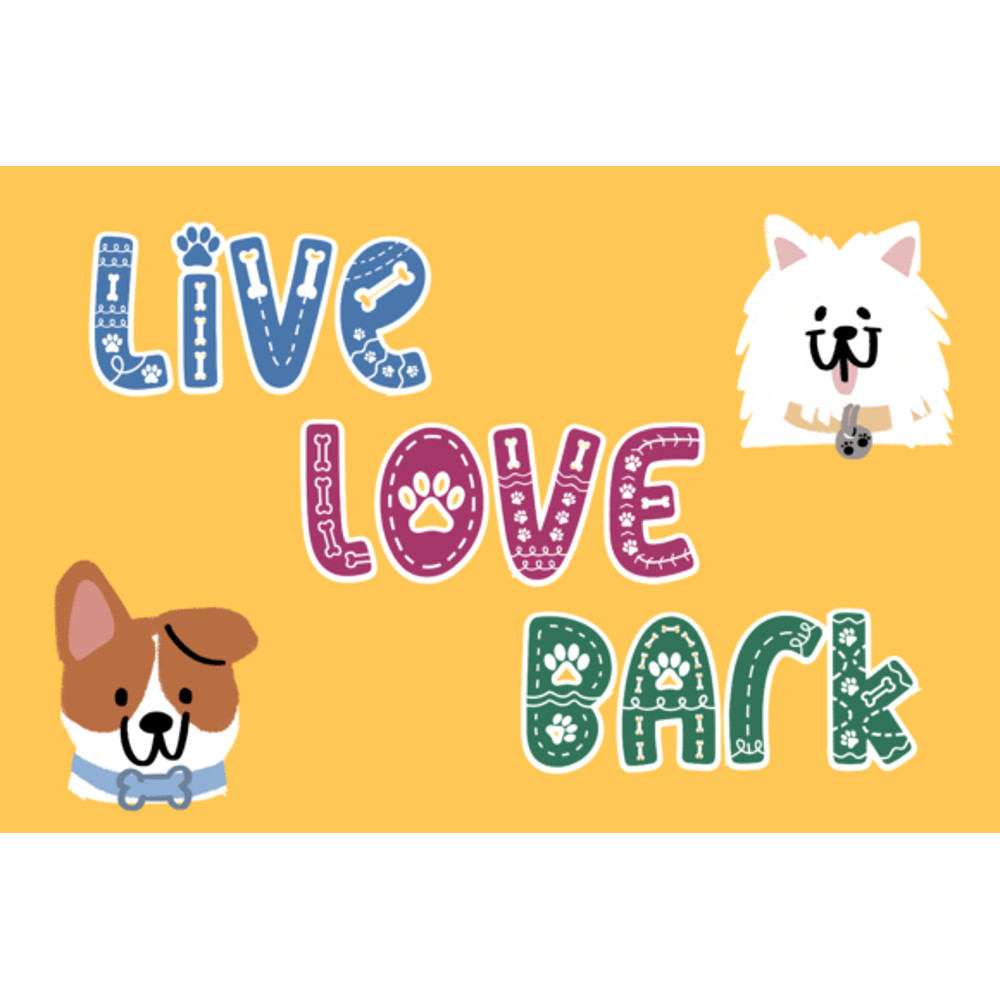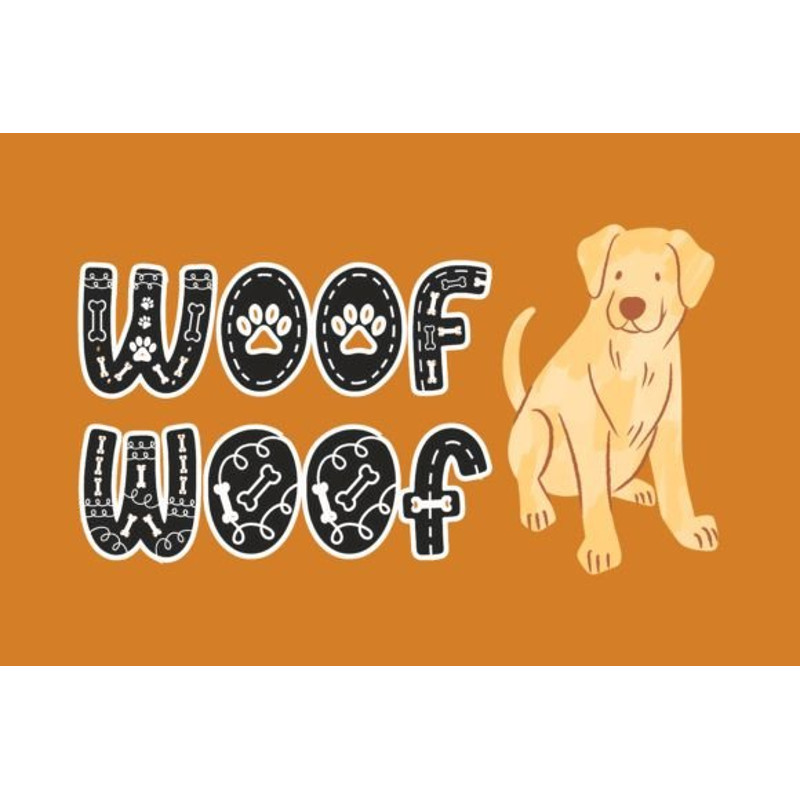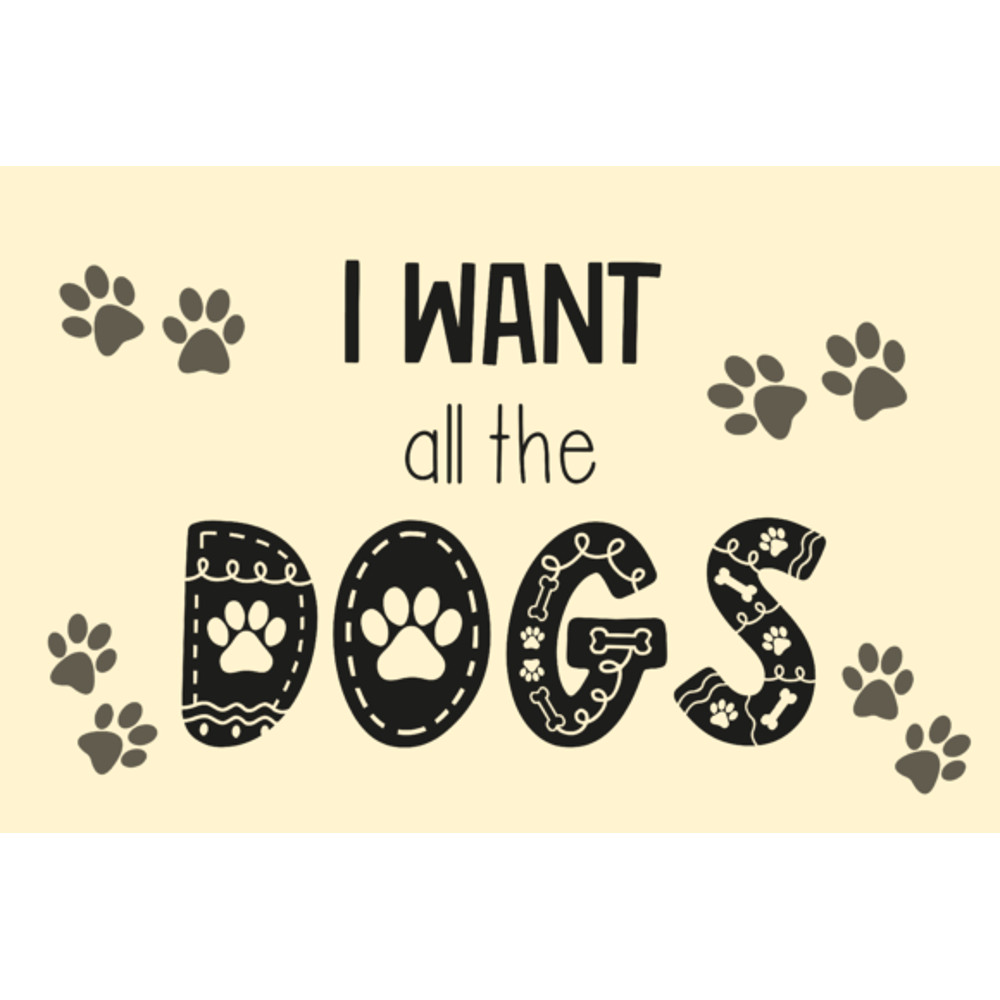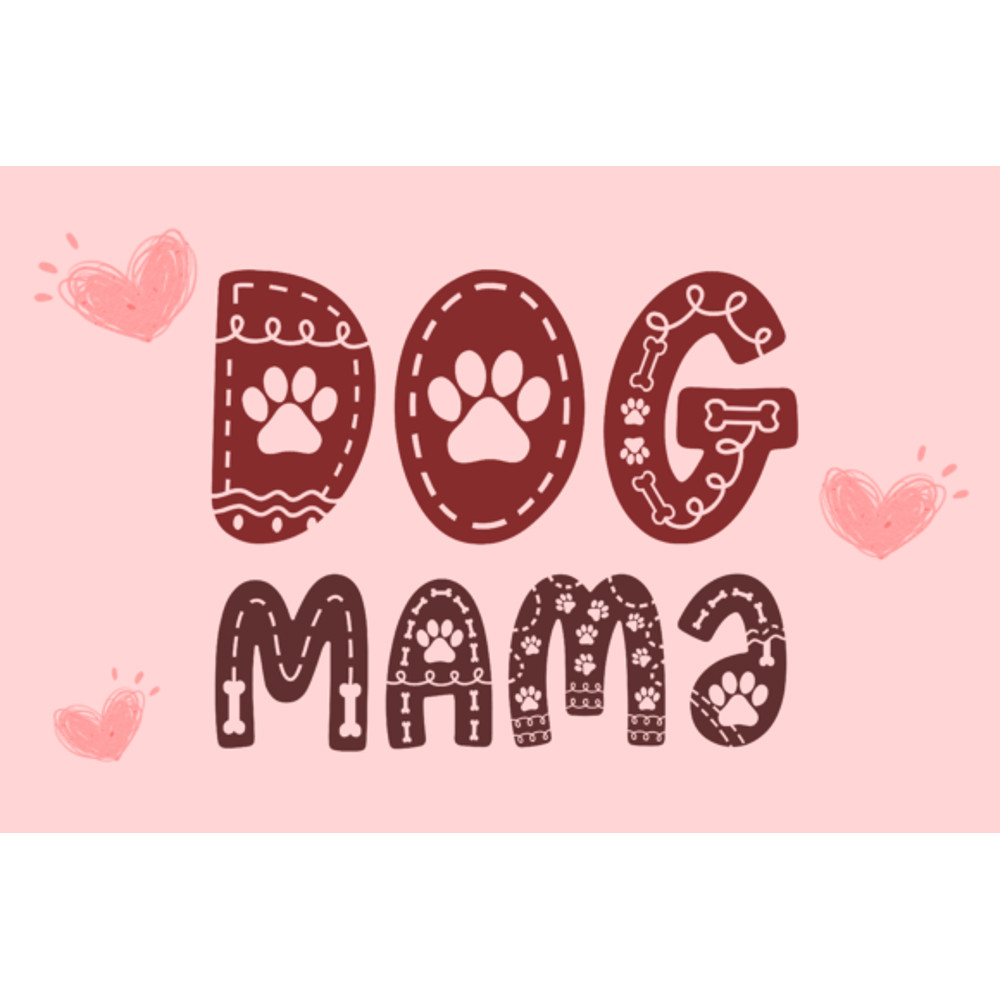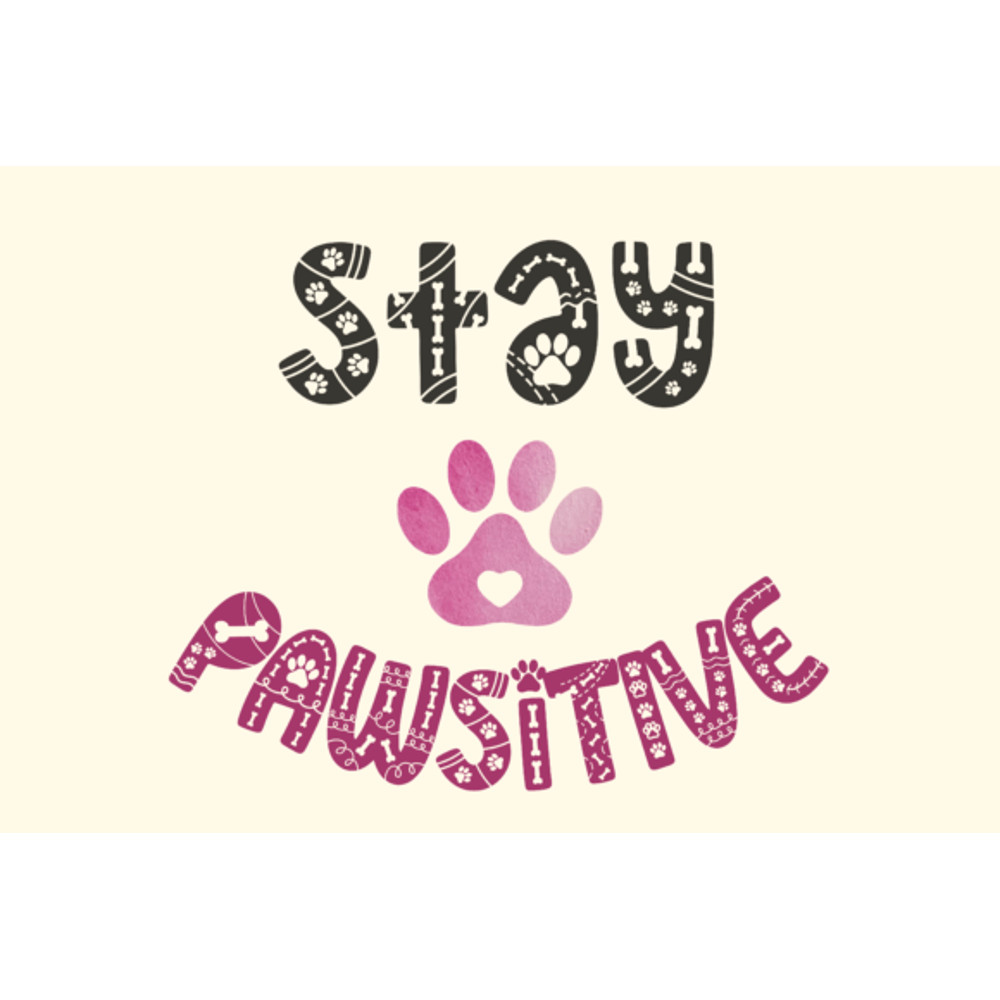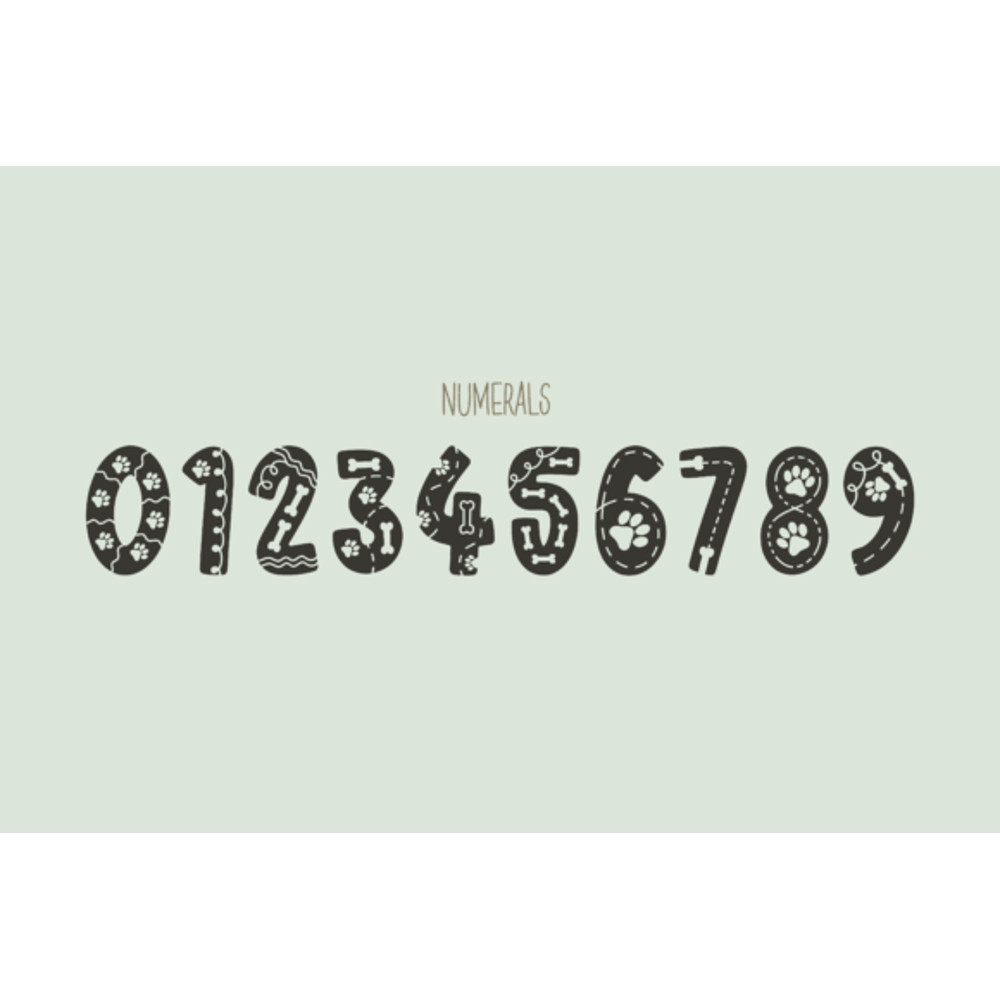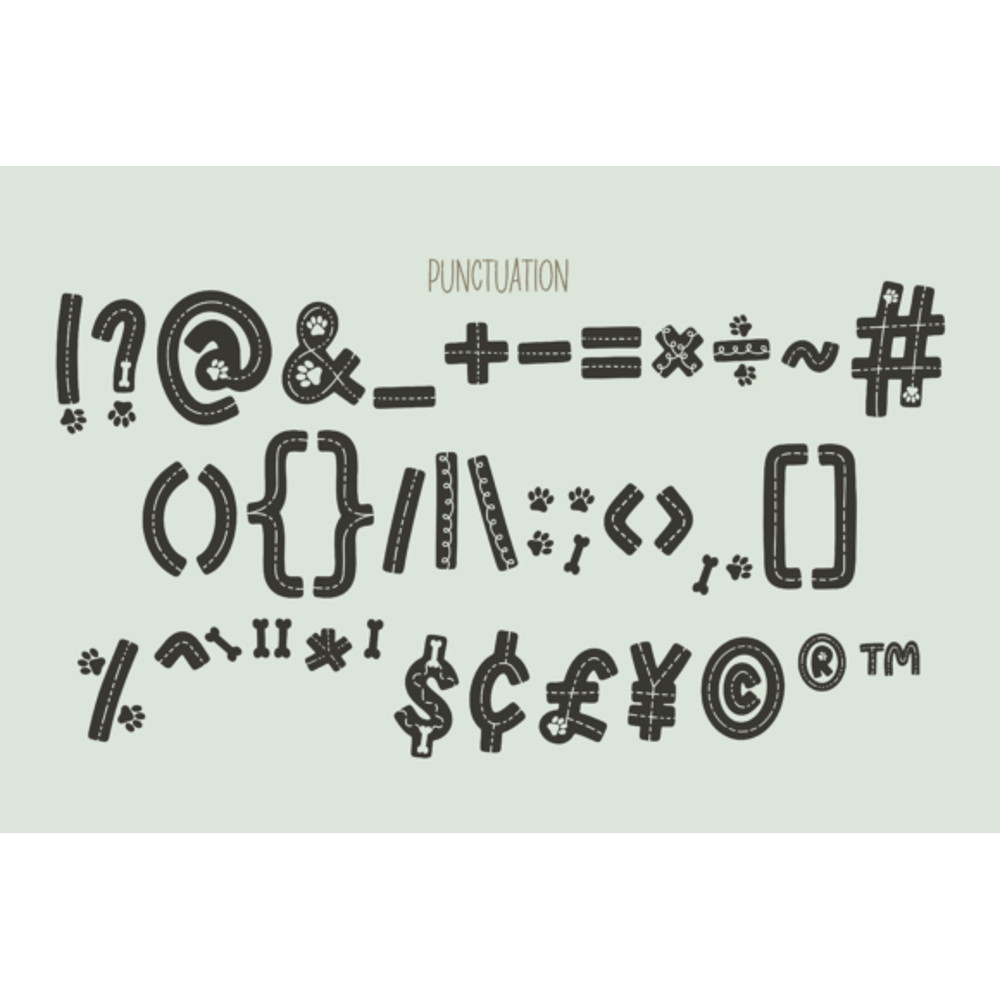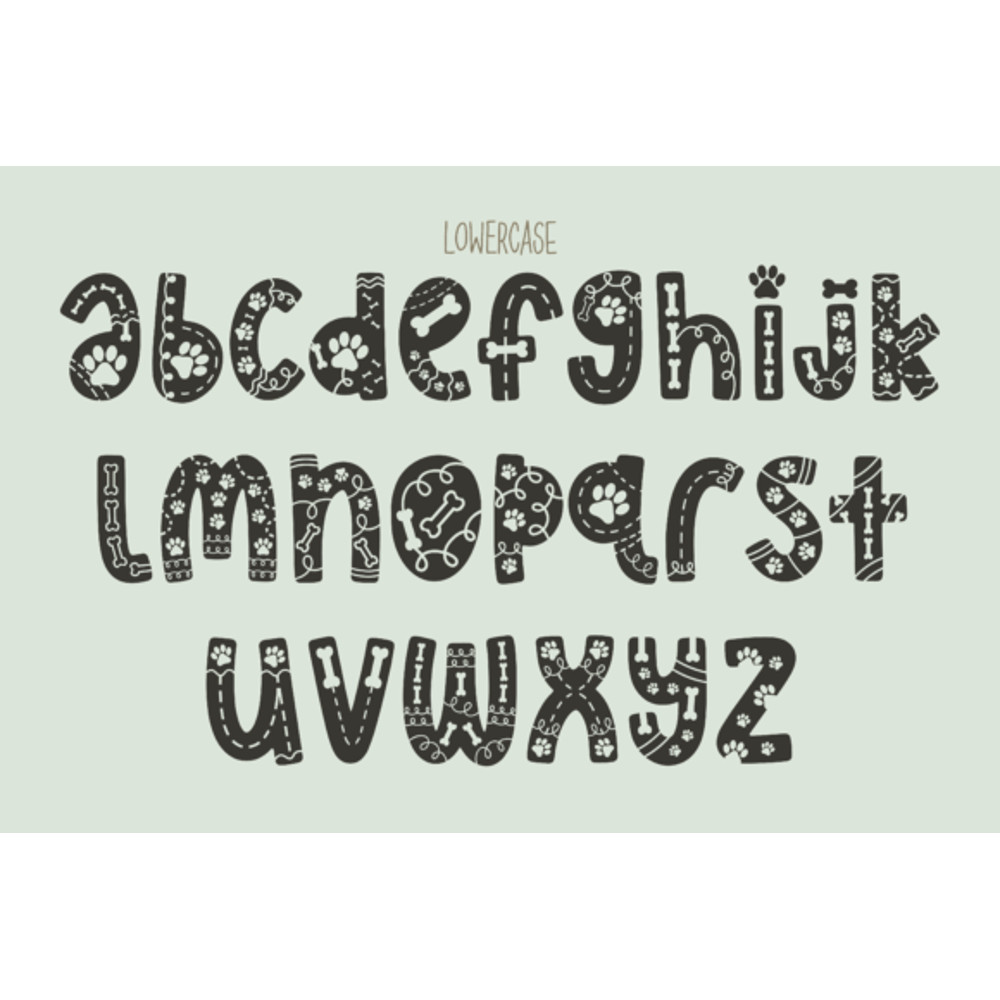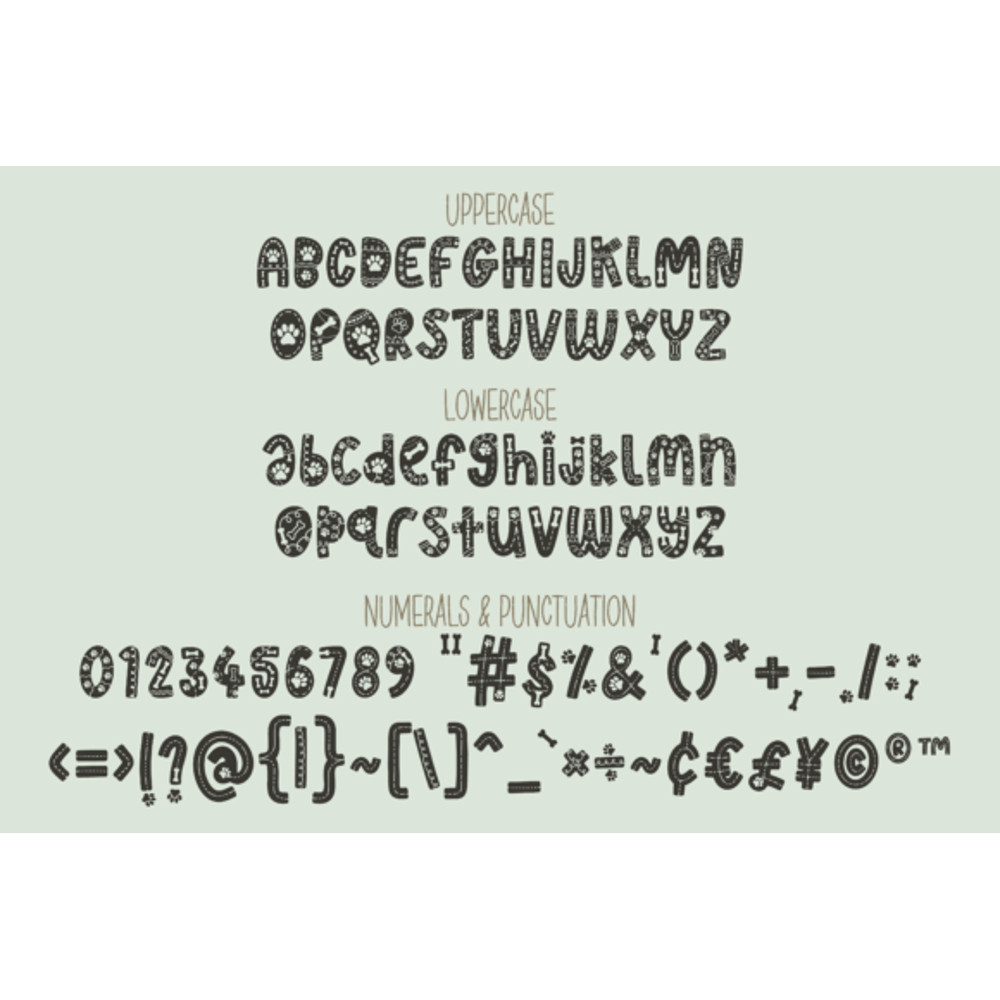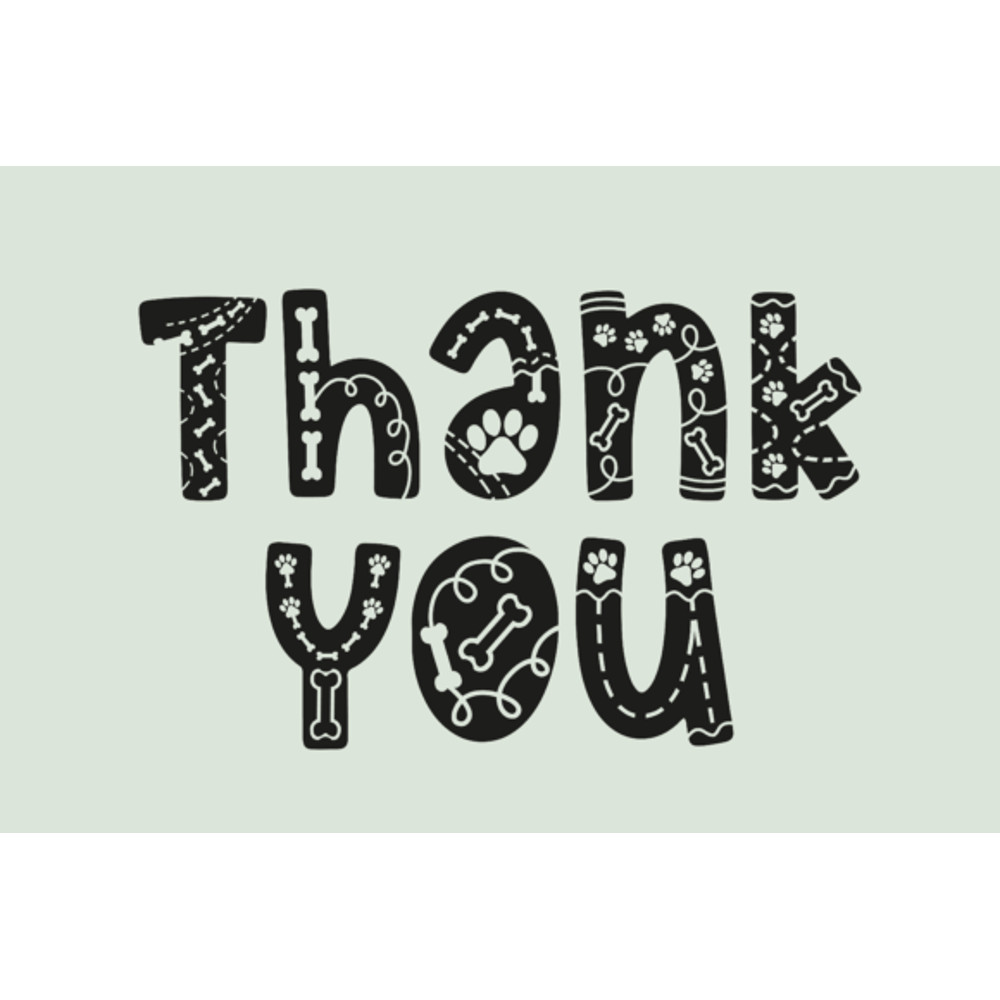
Dog Bites Font
Dog Bites is a cute and friendly dog-style display font. This font is perfect for dog designs. It will be suitable for designing t-shirts, tote bags, hats, stickers, wedding designs, logos, cards, quotes, and more!
Dog Bites font will make any creative idea stand out!